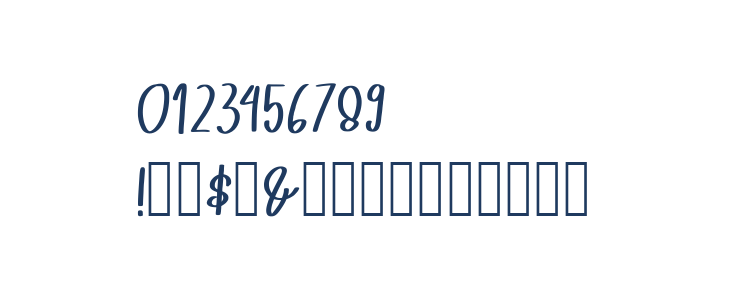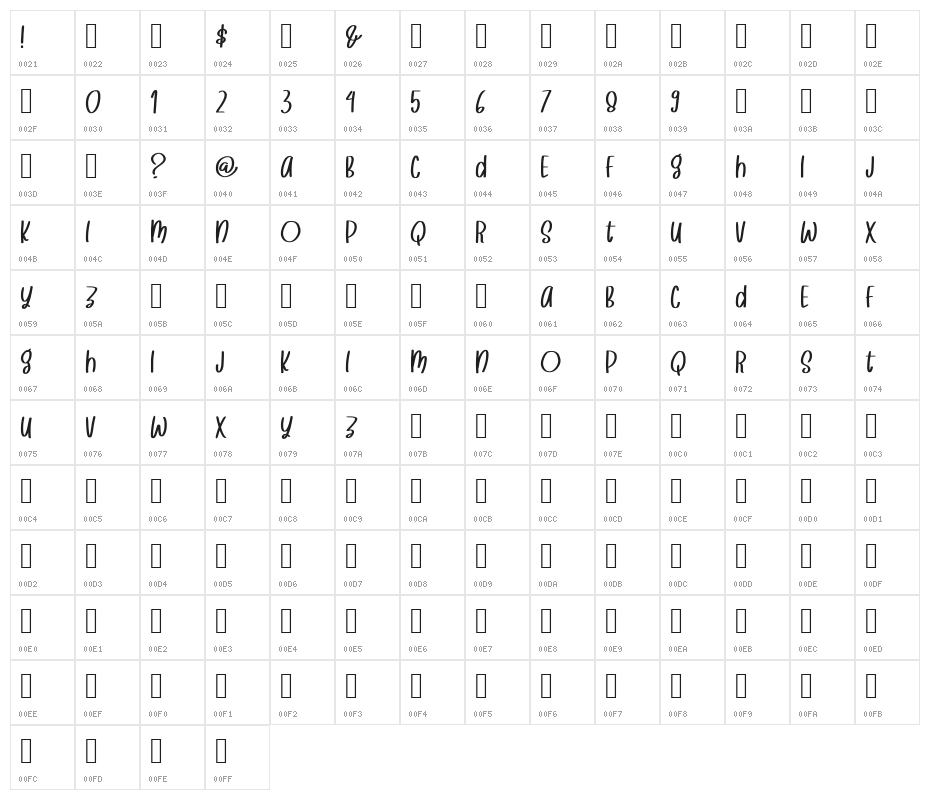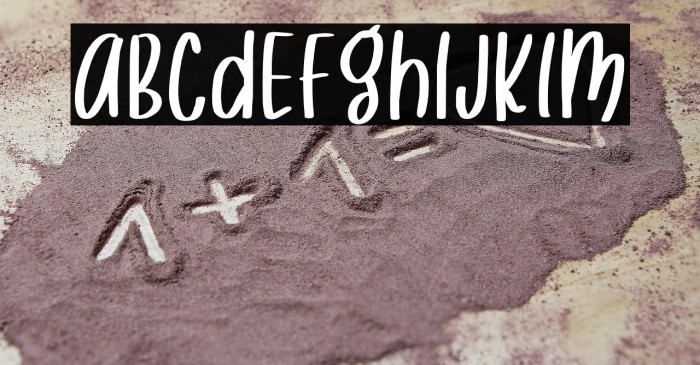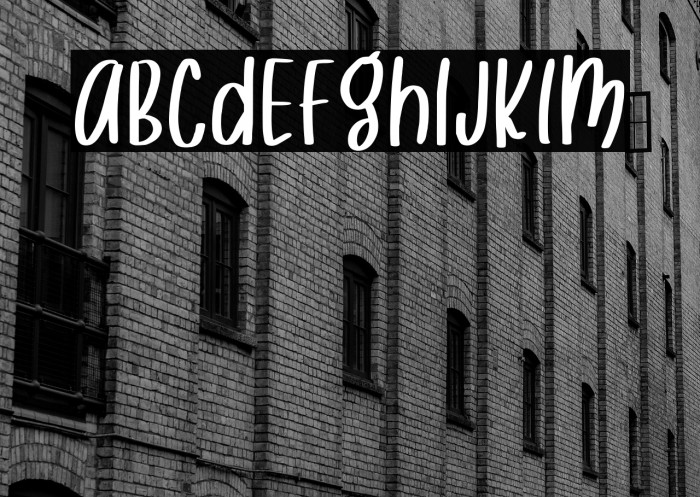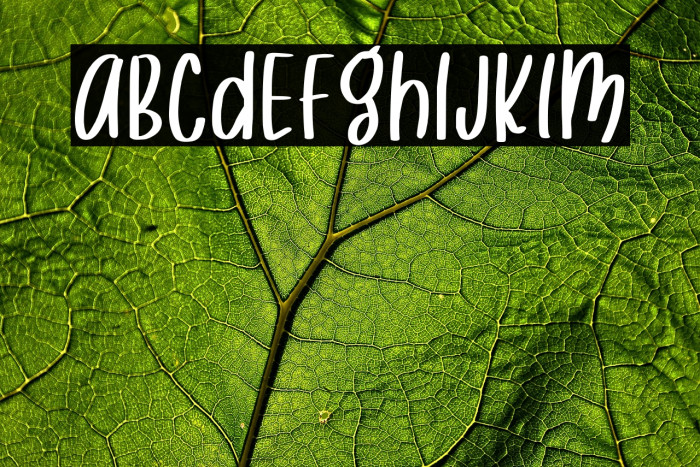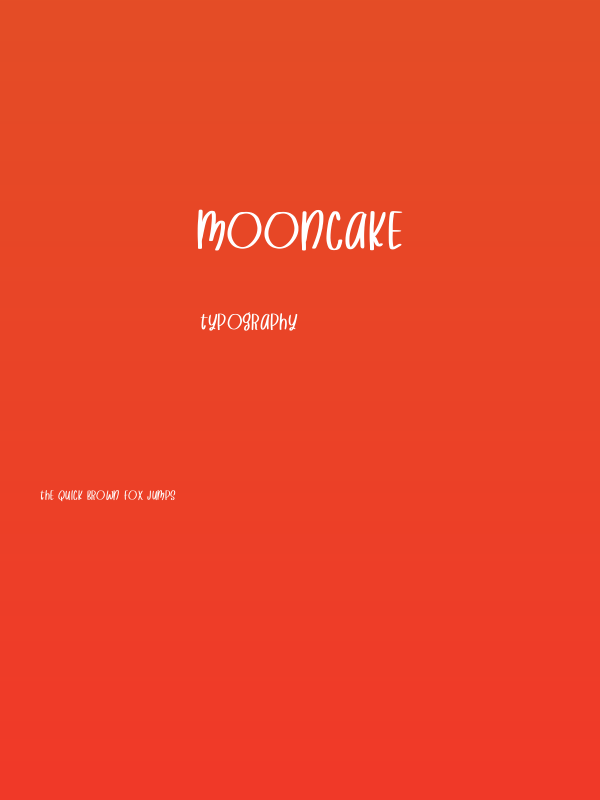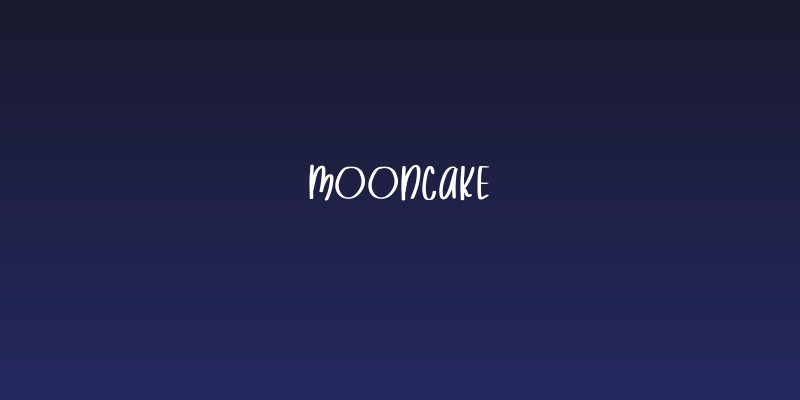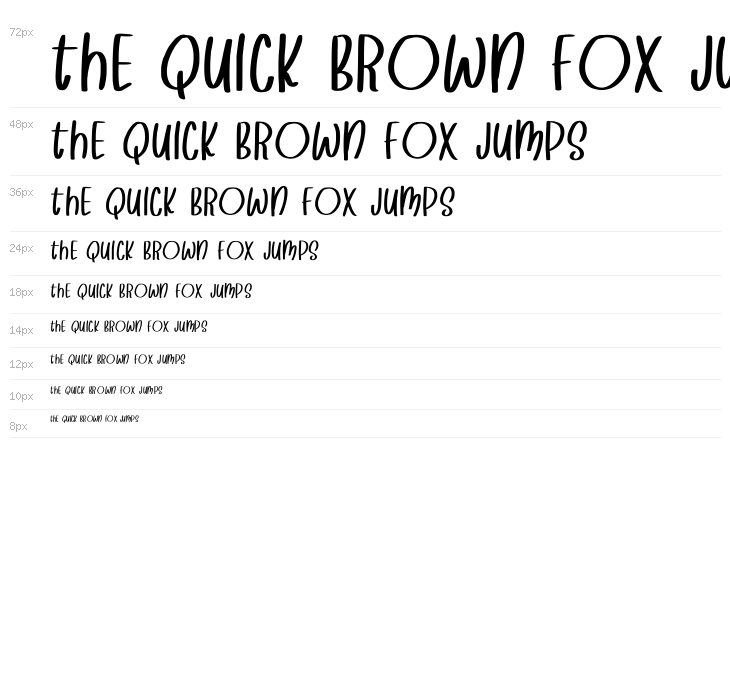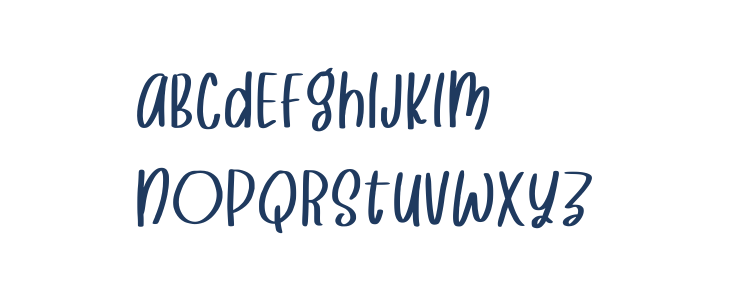
Mooncake Font
Mooncake Description
This font features a playful and casual handwritten style, characterized by its smooth, flowing curves and slightly irregular letterforms. The letters have a consistent stroke width, giving it a uniform appearance while maintaining a sense of spontaneity and charm. The uppercase and lowercase letters are well-balanced, with rounded edges that add to its friendly and approachable feel. The numerals and special characters are designed to match the overall aesthetic, ensuring a cohesive look across all text elements. This font is versatile and can be used in various design projects that require a personal touch.
| Overall Style | Casual |
| Use Case | Logos, Invitations, Social Media Graphics |
| Proposed Projects | Perfect for greeting cards, invitations, social media graphics, and branding projects that require a personal and friendly touch. |